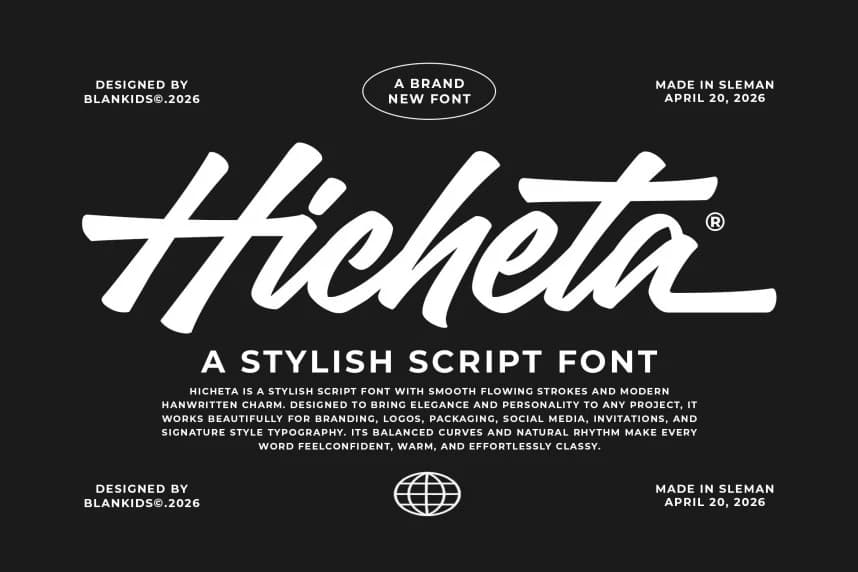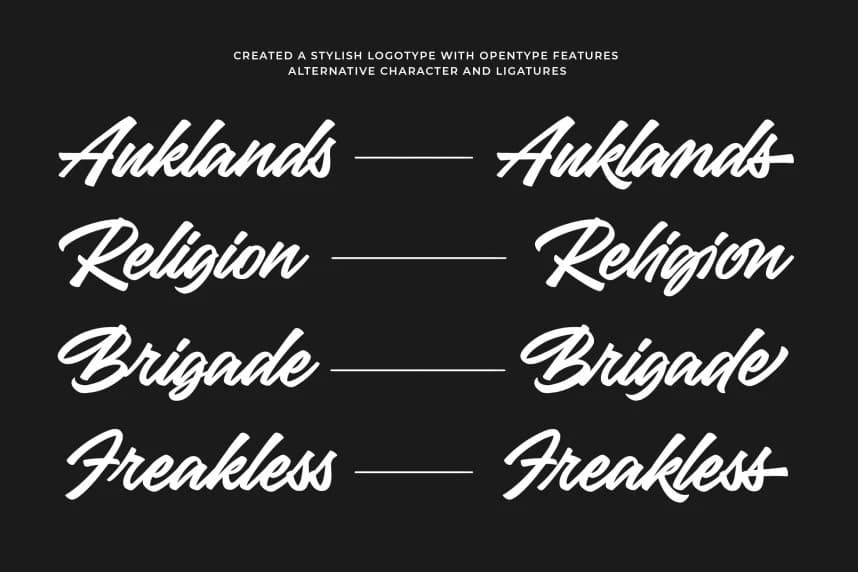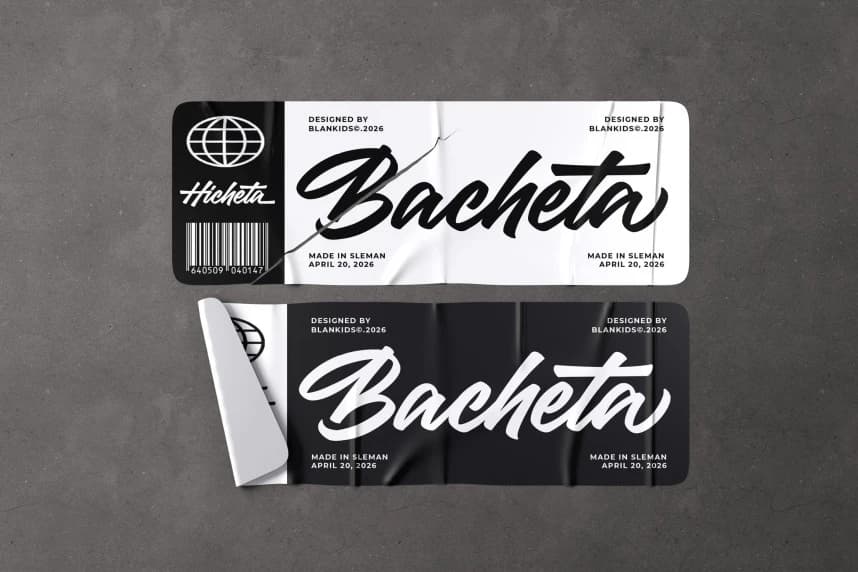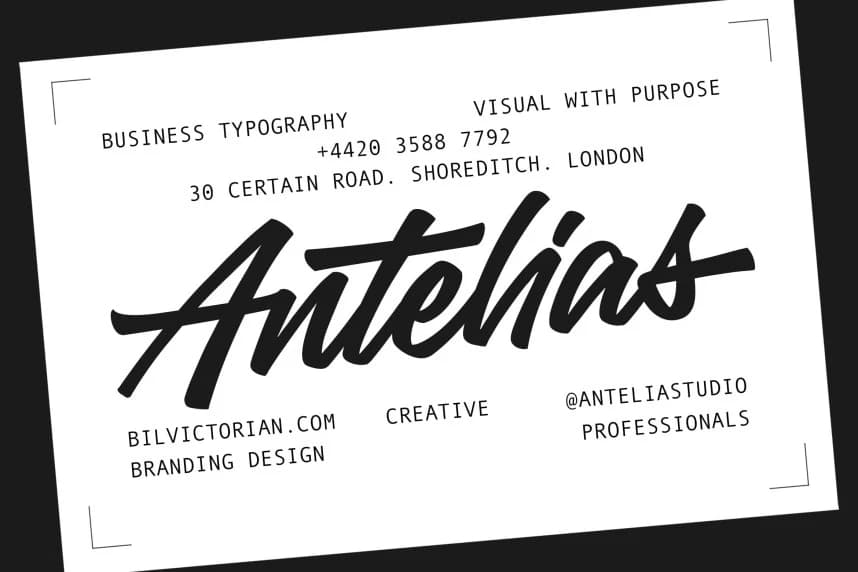
Hicheta Script Font
Hicheta Script Font is a modern stylish script font designed to bring bold personality and effortless elegance into contemporary design. Crafted with smooth flowing strokes, strong rhythm, and eye-catching ligatures